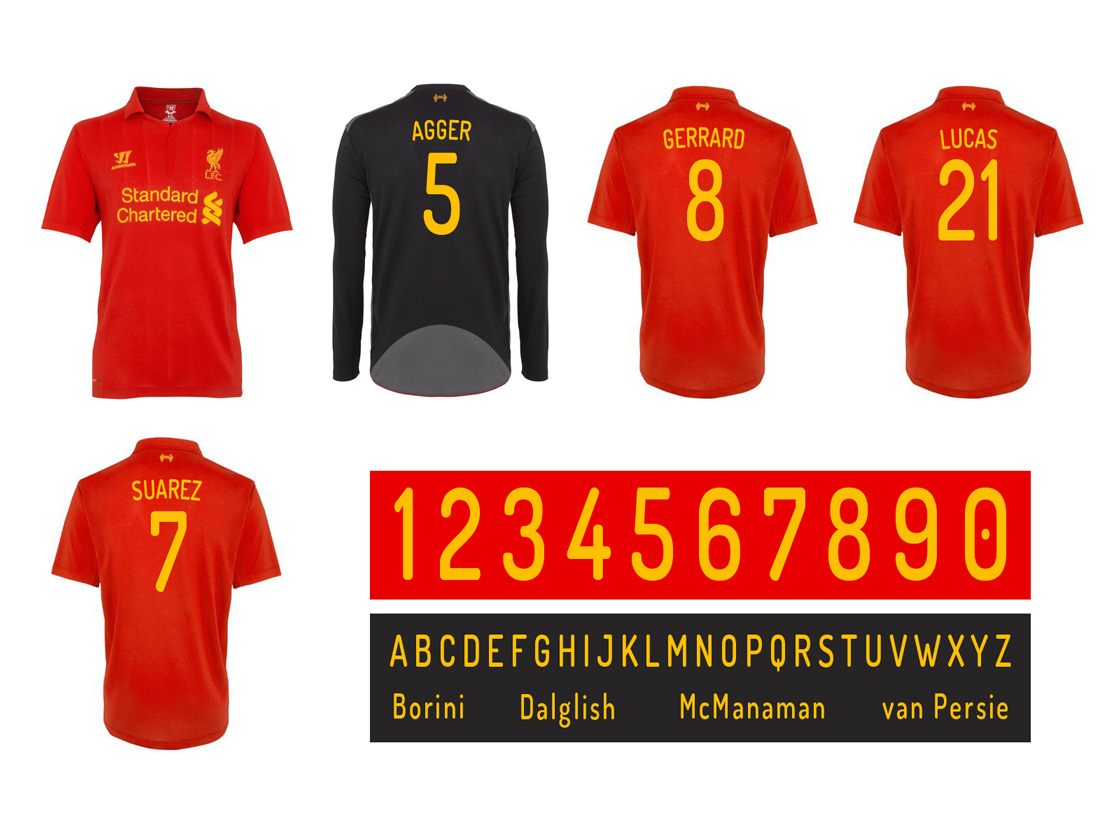
Liverpool FC Font Competition
• Generic Description: Excellent entries. Huge oversight by the club in not updating the font. It looks so wrong currently. Here\'s my entry. I\'m using the Dosis font in semi bold, with a slight arch to the players names to add some realness.